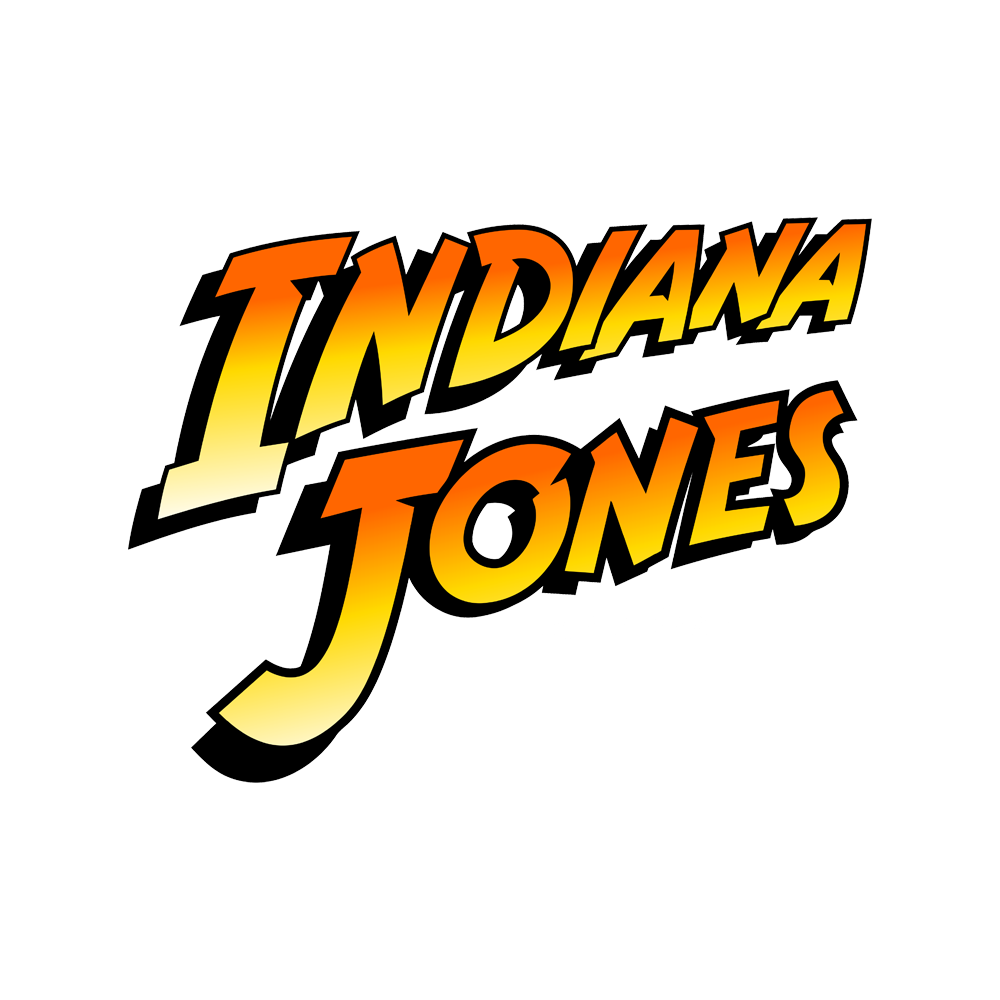
Indiana Jones Font
ActionIndiana Jones is an American action-adventure film series, that also appears in books, comics, video games, and other media. It is based on the adventures of Dr. Henry Walton "Indiana" Jones, Jr., as a fictional professor of archaeology.
The Indiana Jones logo was created as SF Fedora by ShyFonts. The font is free to use and available in various styles.